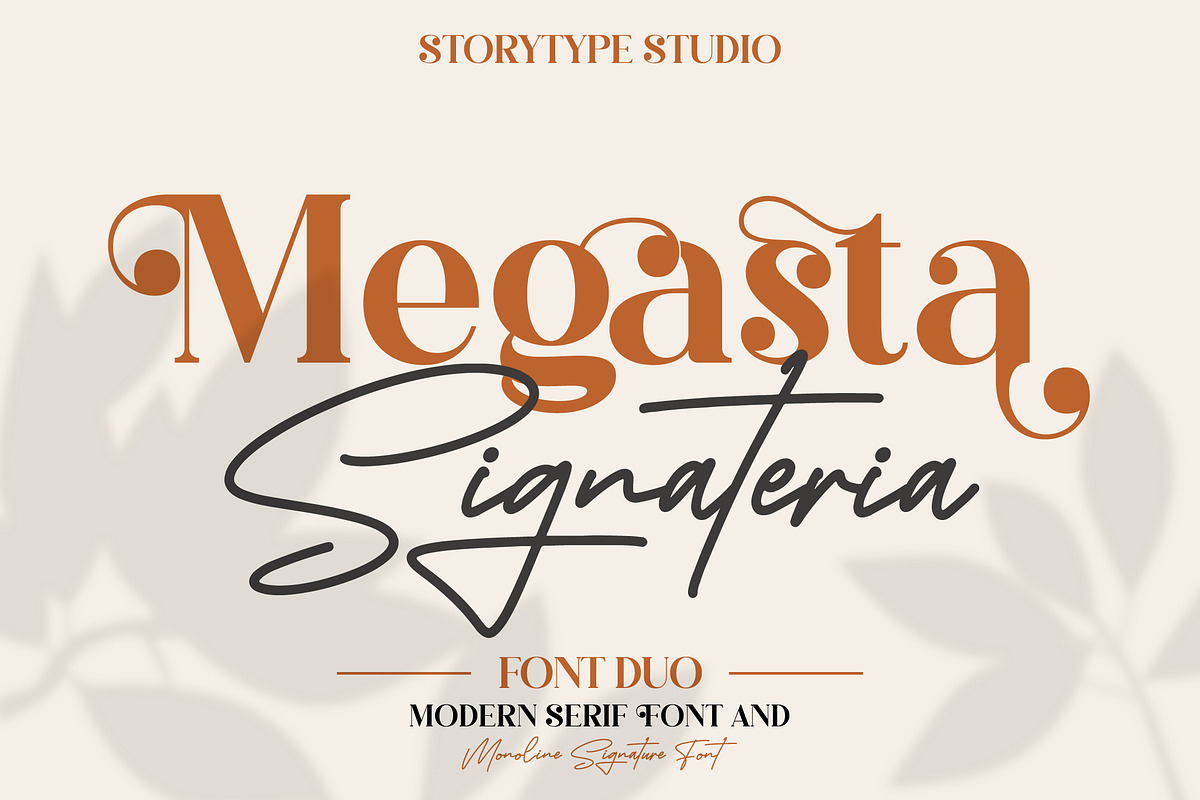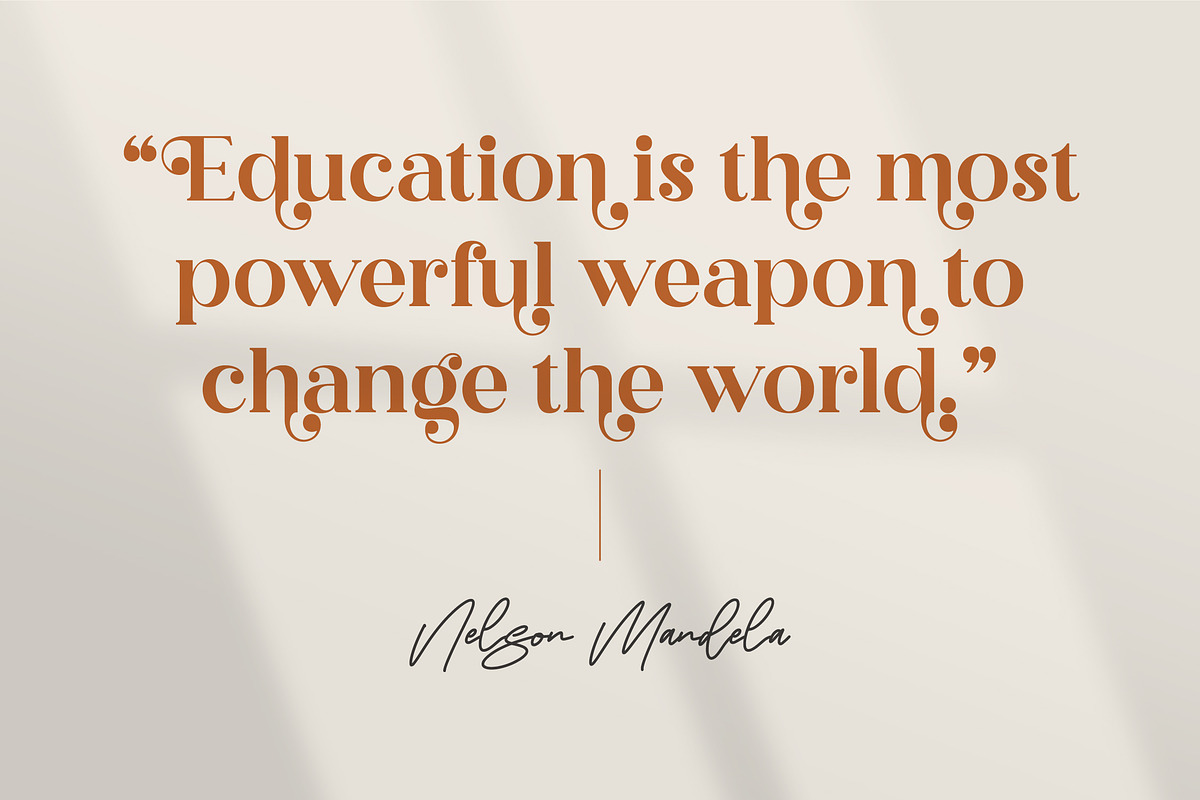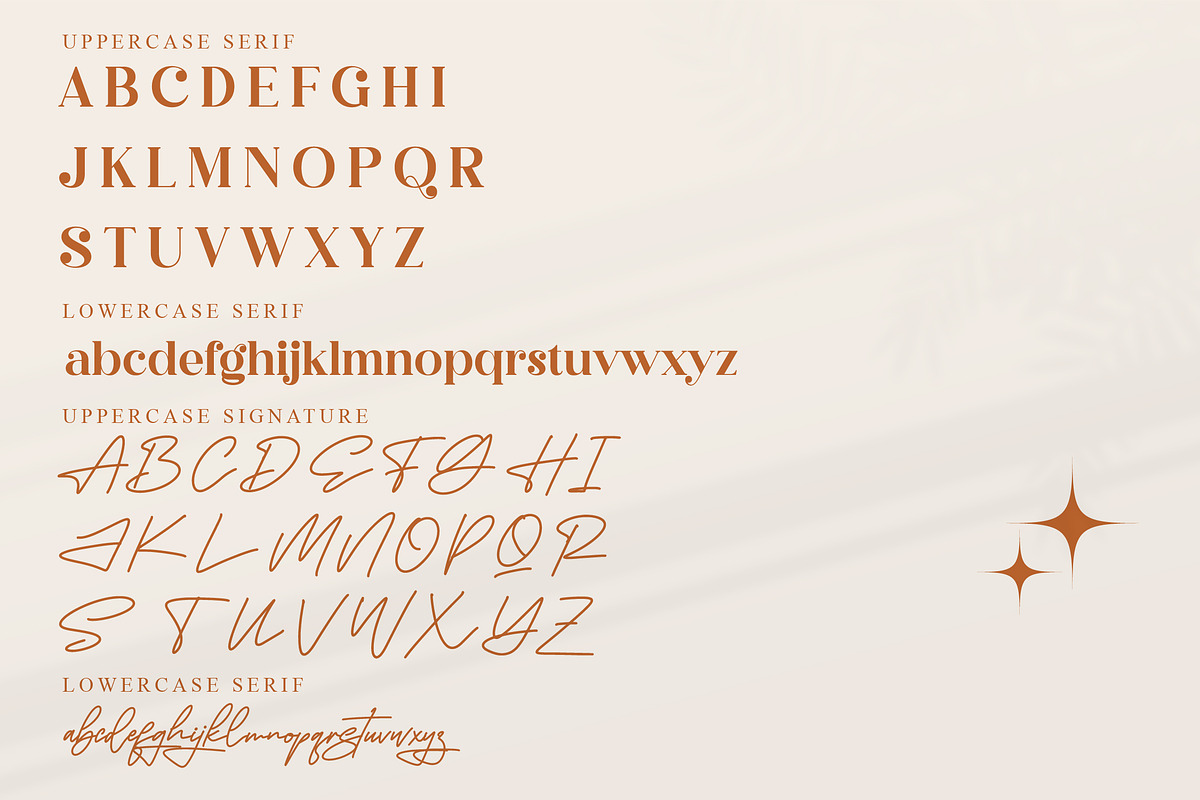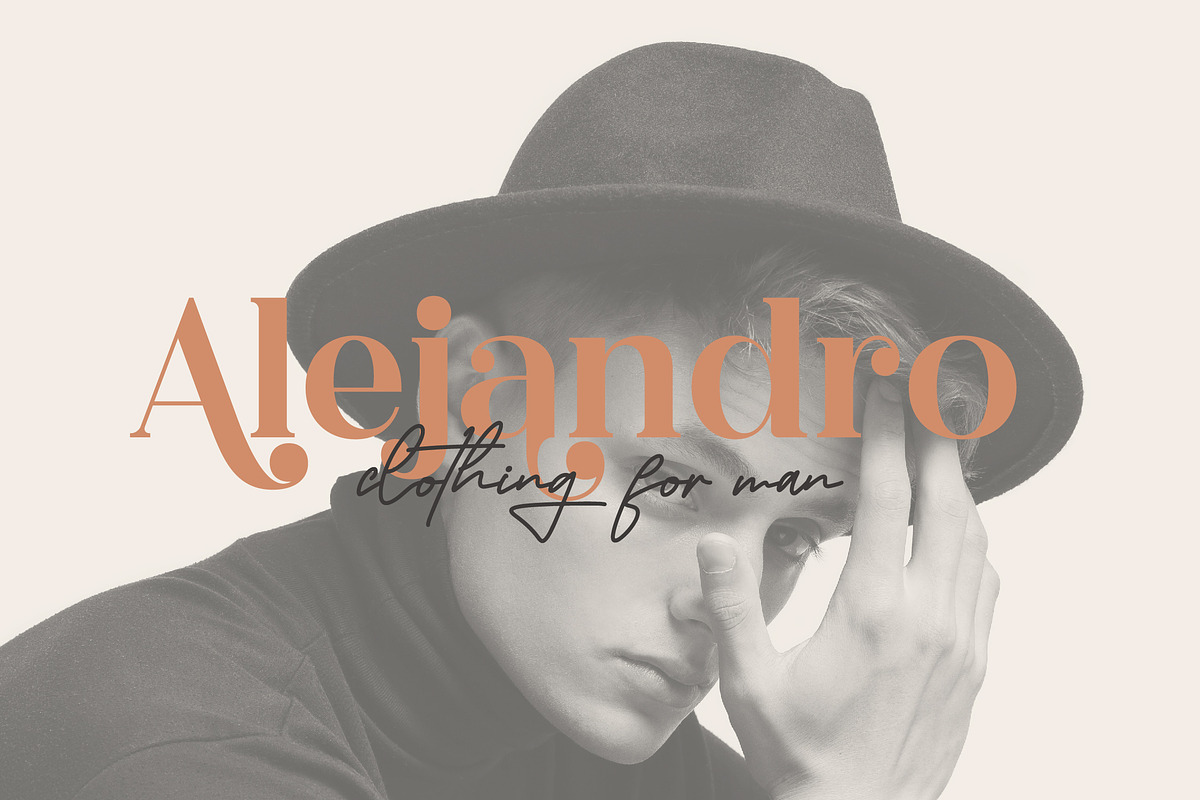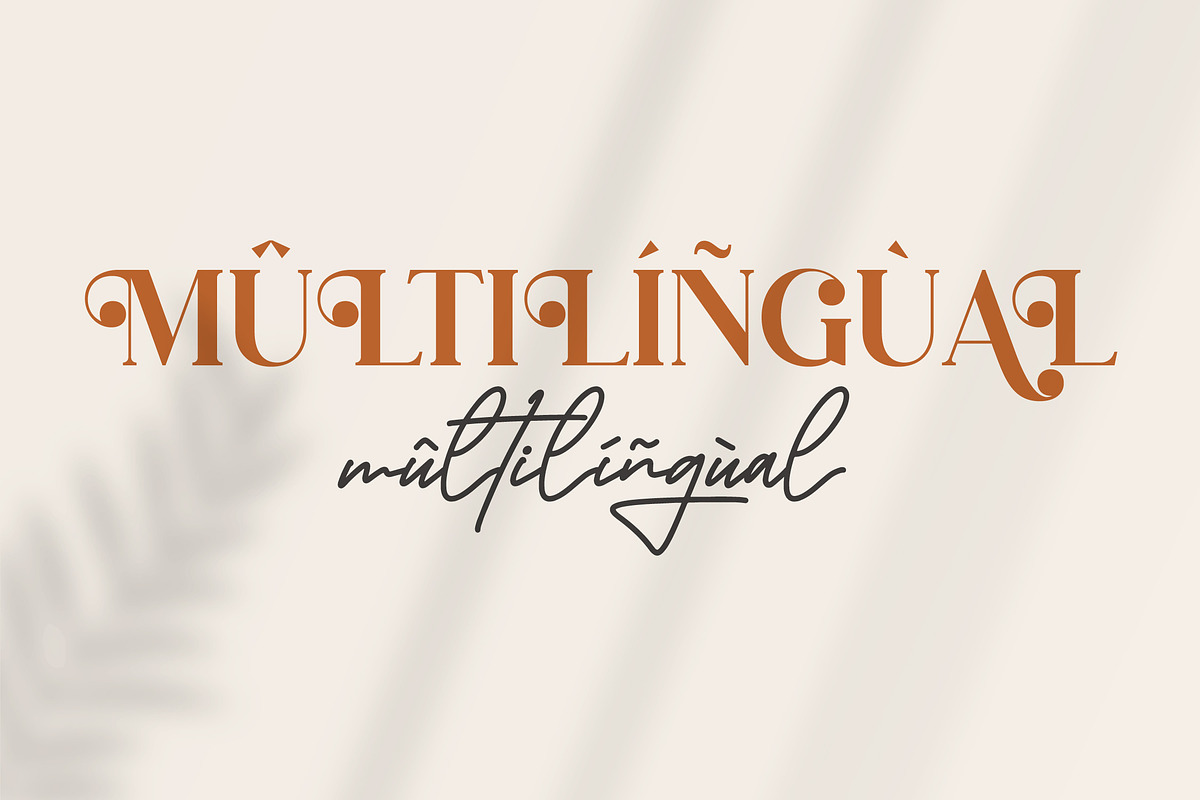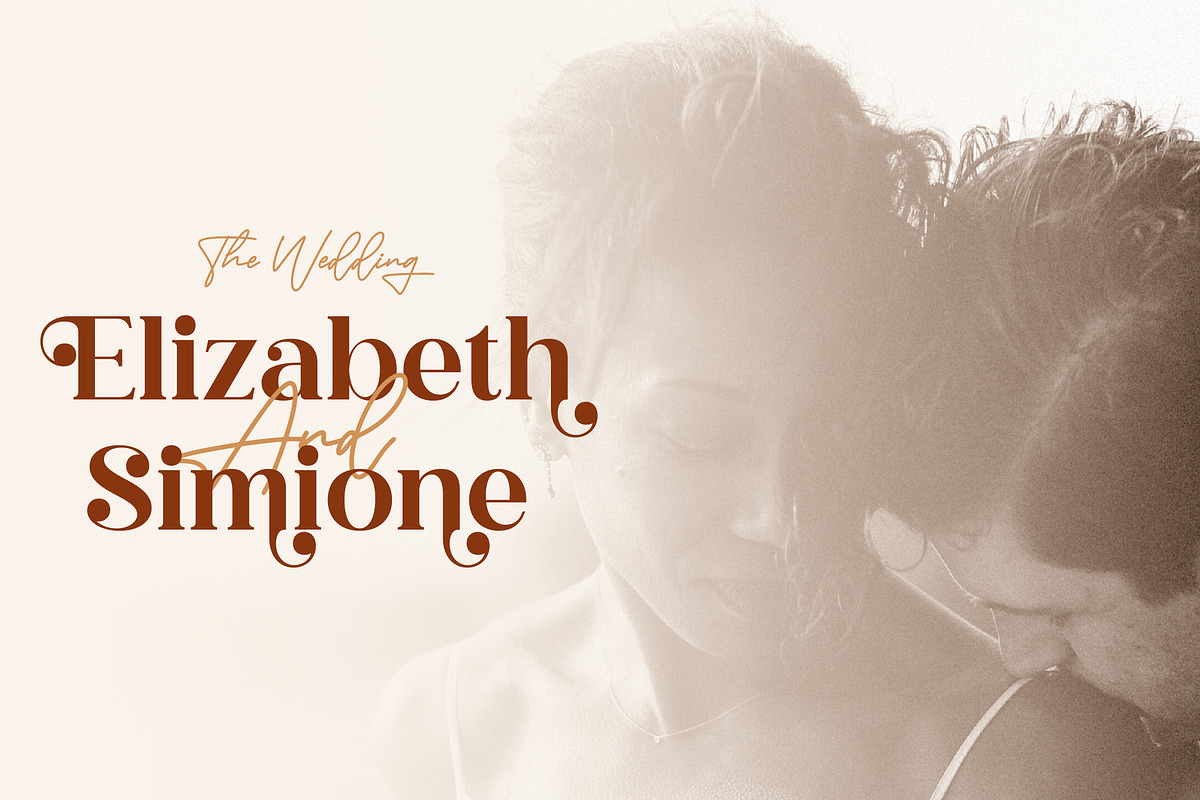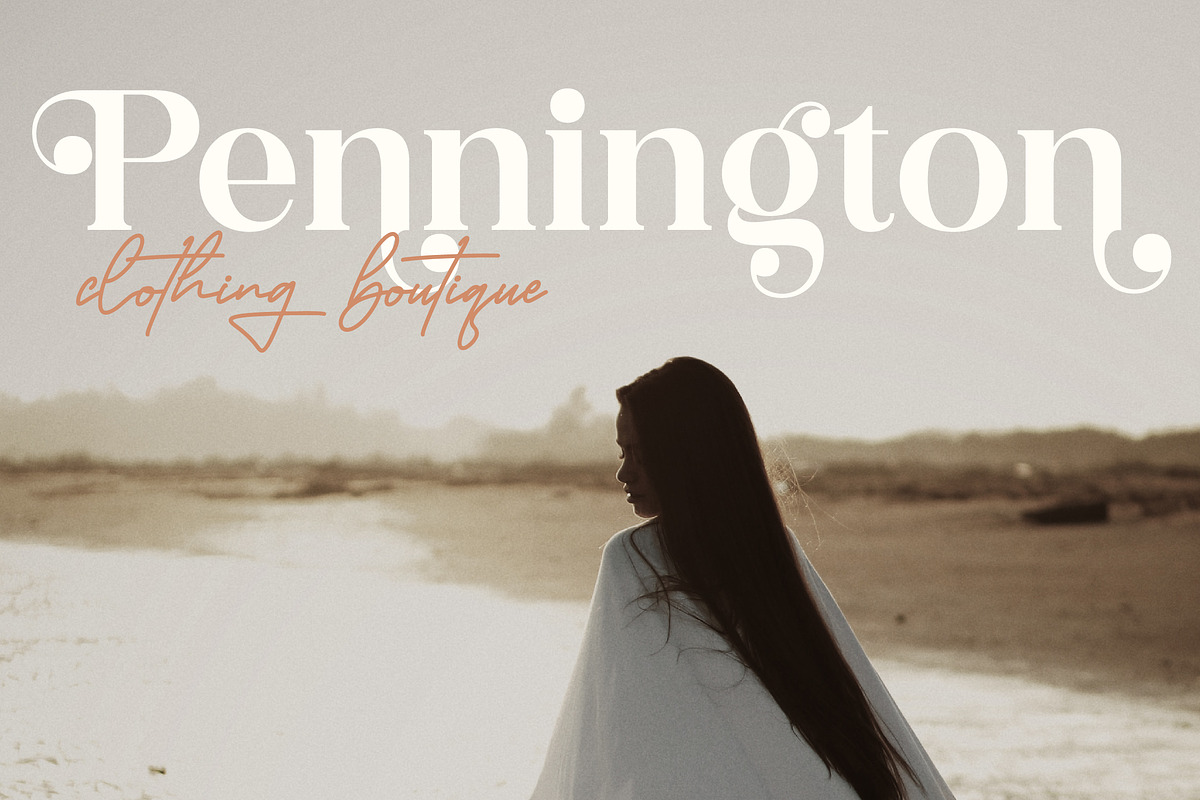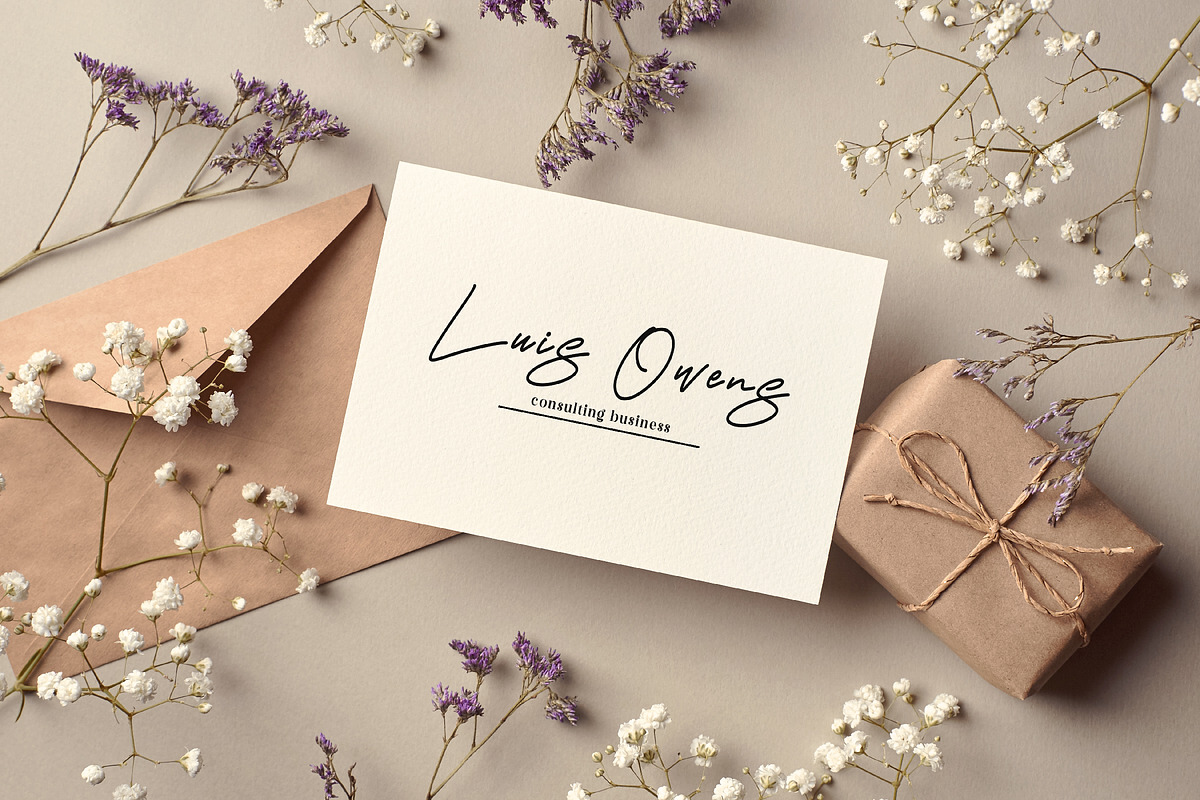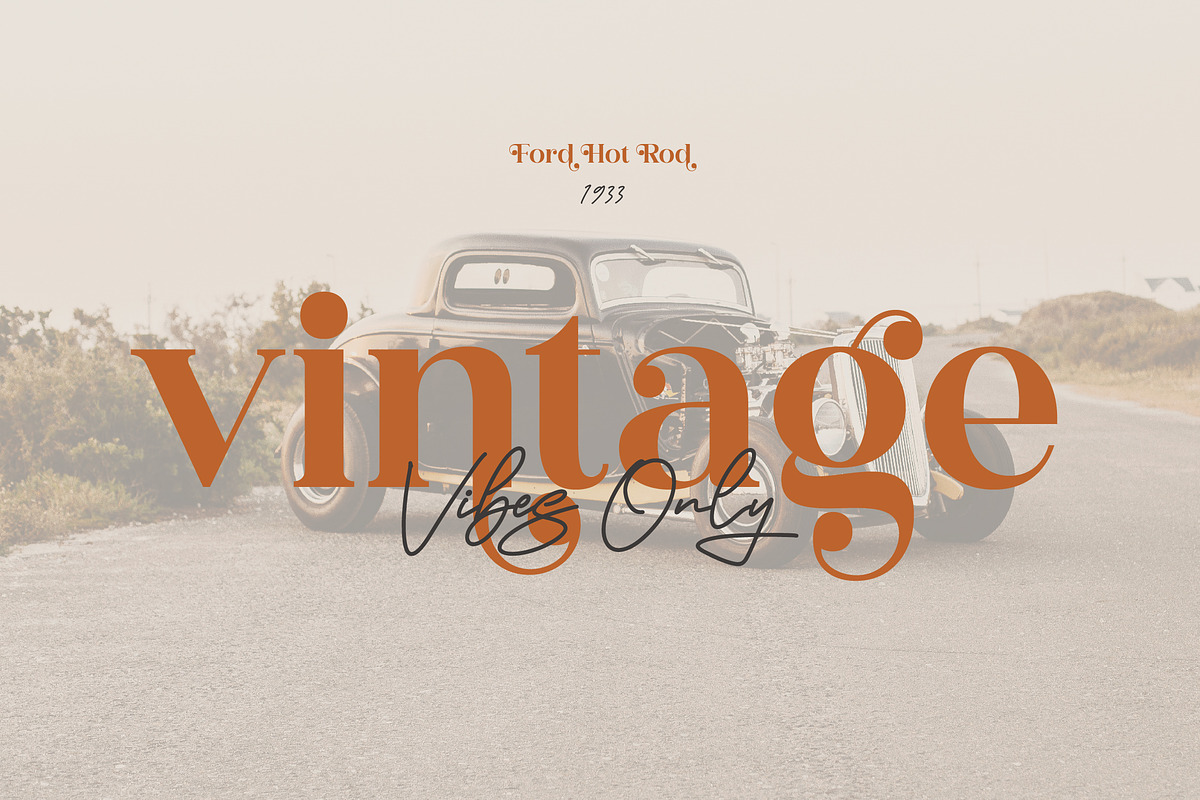
Megasta Signateria Font Duo Typeface
Proudly present Megasta Signateria Font Duo Typeface, created by Storytype, A serif modern and classic typeface and Monoline Signature that has own unique style & modern look. This typeface is perfect for an elegant & luxury logo, book or movie title design, fashion brand, magazine, clothes, lettering, quotes, and so much more.